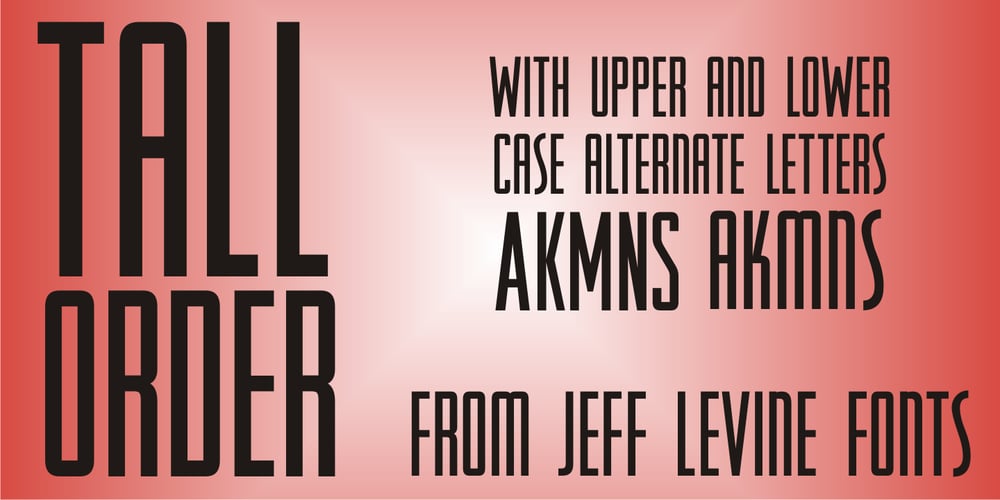
Tall Order JNL
Tall Order JNL font
Tall Order JNL Font Family was designed by Jeff Levine and published by Jeff Levine. Tall Order JNL contains 1 styles and family package options. The condensed style and square character shapes of a vintage typeface originally known as Raleigh has been re-interpreted by Jeff Levine Fonts as Tall Order JNL. There is an alternate A, K, M, N and S on the respective lower case keys.